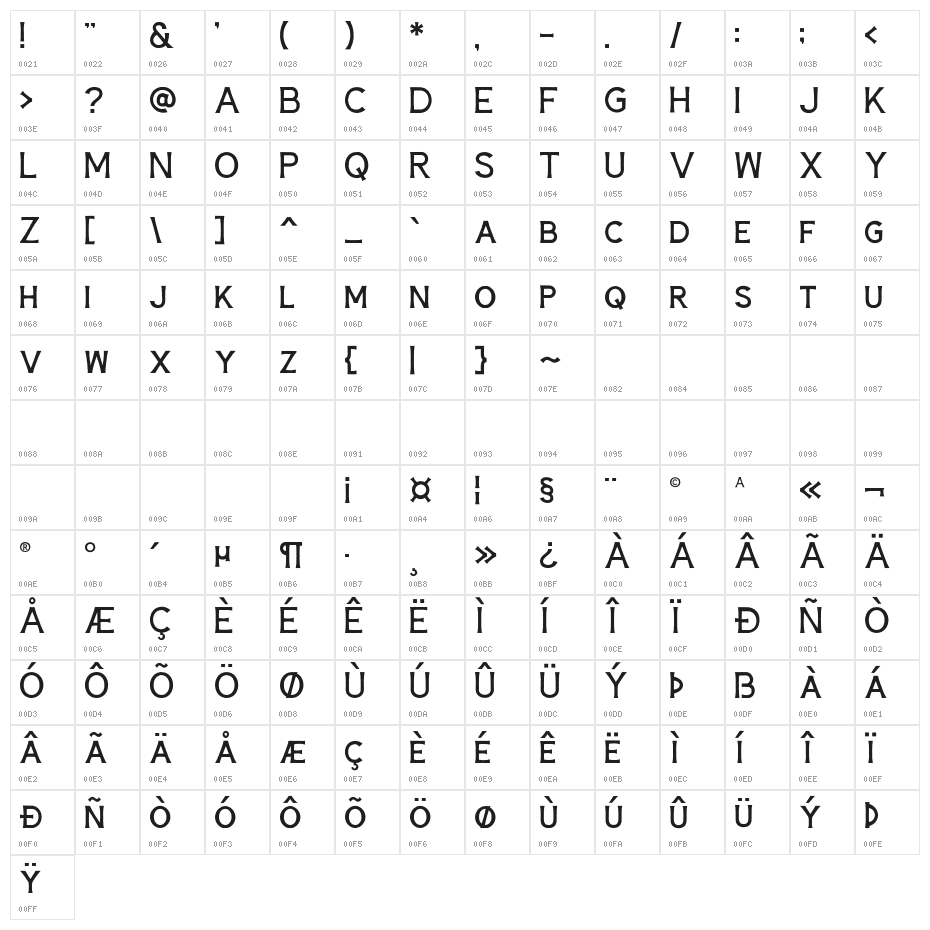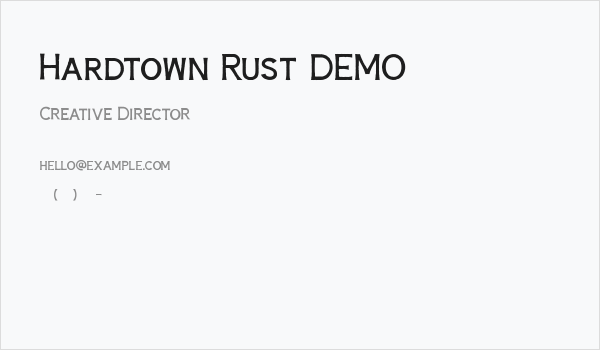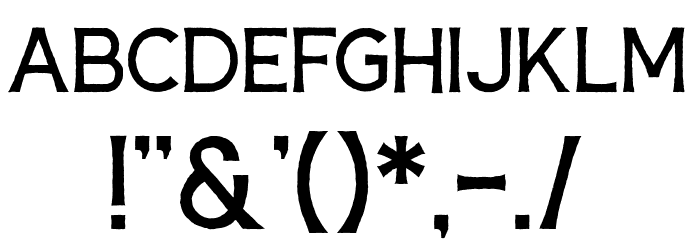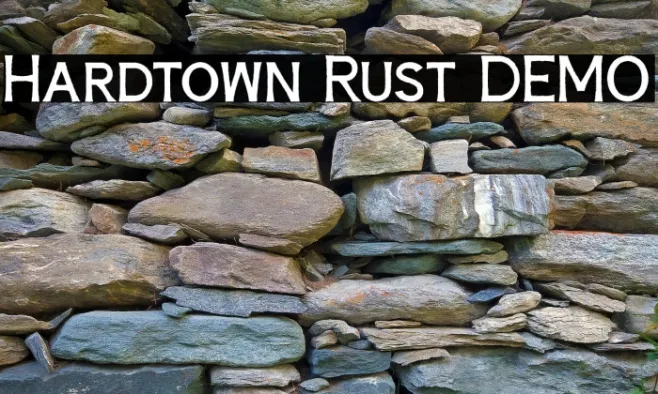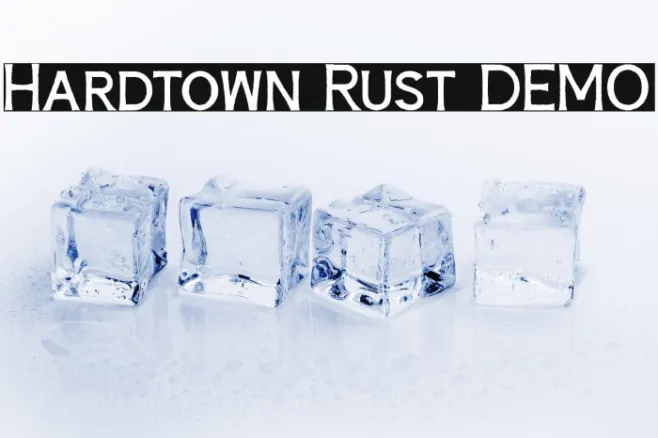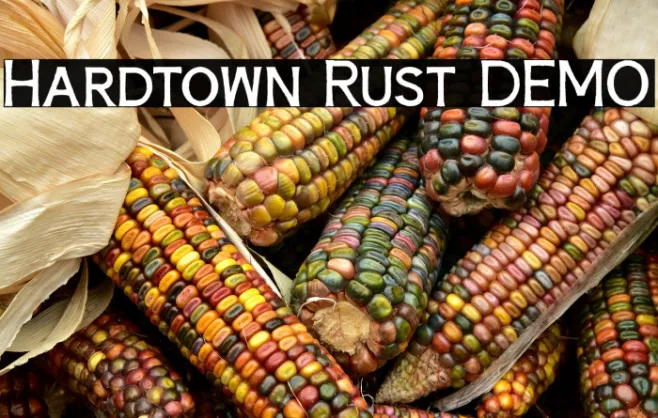
Hardtown Rust DEMO Font
Hardtown Rust DEMO Description
This font features a rugged, hand-crafted appearance with a slightly distressed texture, giving it a rustic and vintage feel. The characters are bold and have a consistent weight, with a slight irregularity in the strokes that adds to its charm. The uppercase letters are prominent and well-defined, while the lowercase letters maintain a similar style, ensuring readability. The numbers and special characters are designed to match the overall aesthetic, making it versatile for various design needs. The font's unique style makes it suitable for projects that require a touch of authenticity and character.
| Proposed Projects | Ideal for branding, packaging, posters, and any design project that seeks a vintage or handcrafted look. |